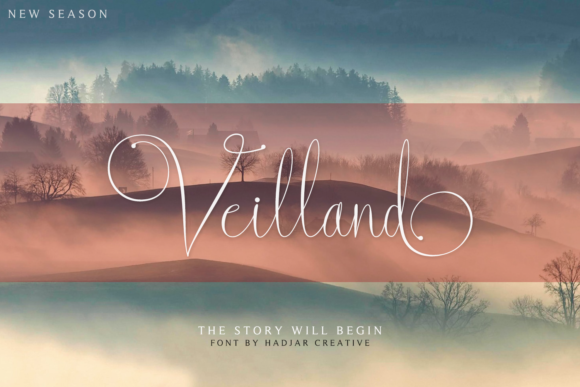
Introducing Veilland Font: A Journey into Timeless Elegance
Embark on a typographic adventure with Veilland Font, a script font family that embodies grace, sophistication, and boundless creativity. This exquisite handwritten font, meticulously crafted by the talented hadjarcreative, possesses a delicate charm and elegant flow that will transform your designs into breathtaking works of art.
Veilland Font's beautifully balanced characters dance harmoniously across the page, creating a visually captivating experience that draws the eye and captures the heart. Its versatility knows no bounds, seamlessly adapting to a myriad of design styles, from classic and timeless to contemporary and edgy.
With Veilland Font, you hold the key to unlocking a world of creative possibilities. Its delicate strokes and elegant curves lend themselves perfectly to wedding invitations, branding projects, social media graphics, and any design where a touch of elegance is desired.
But Veilland Font's allure extends far beyond its visual appeal. It possesses a captivating emotional resonance that speaks directly to the soul. Its graceful lines evoke a sense of nostalgia and romance, while its contemporary twist infuses it with a touch of modernity.
Imagine the impact Veilland Font will have on your next design project. Its timeless beauty will elevate your creations, leaving a lasting impression on your audience. Each letter, meticulously crafted with love and passion, will tell a story, conveying emotions and messages in a way that ordinary fonts simply cannot.